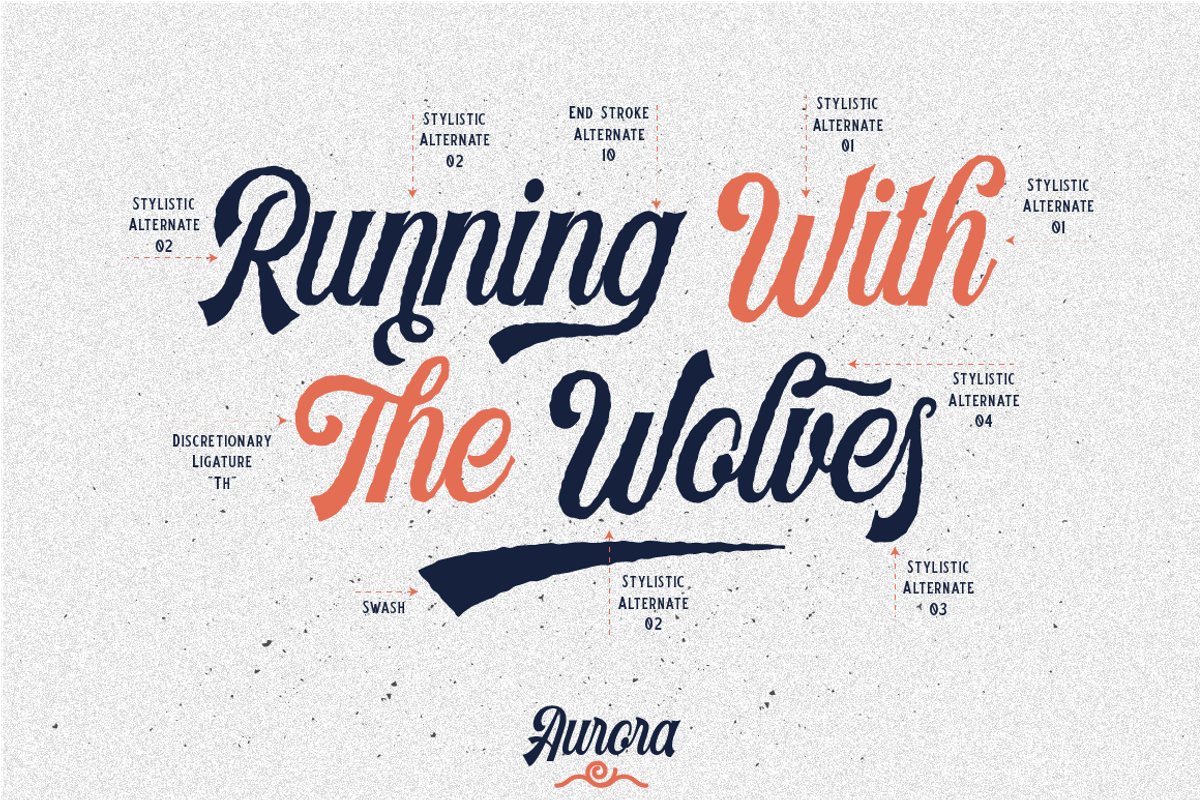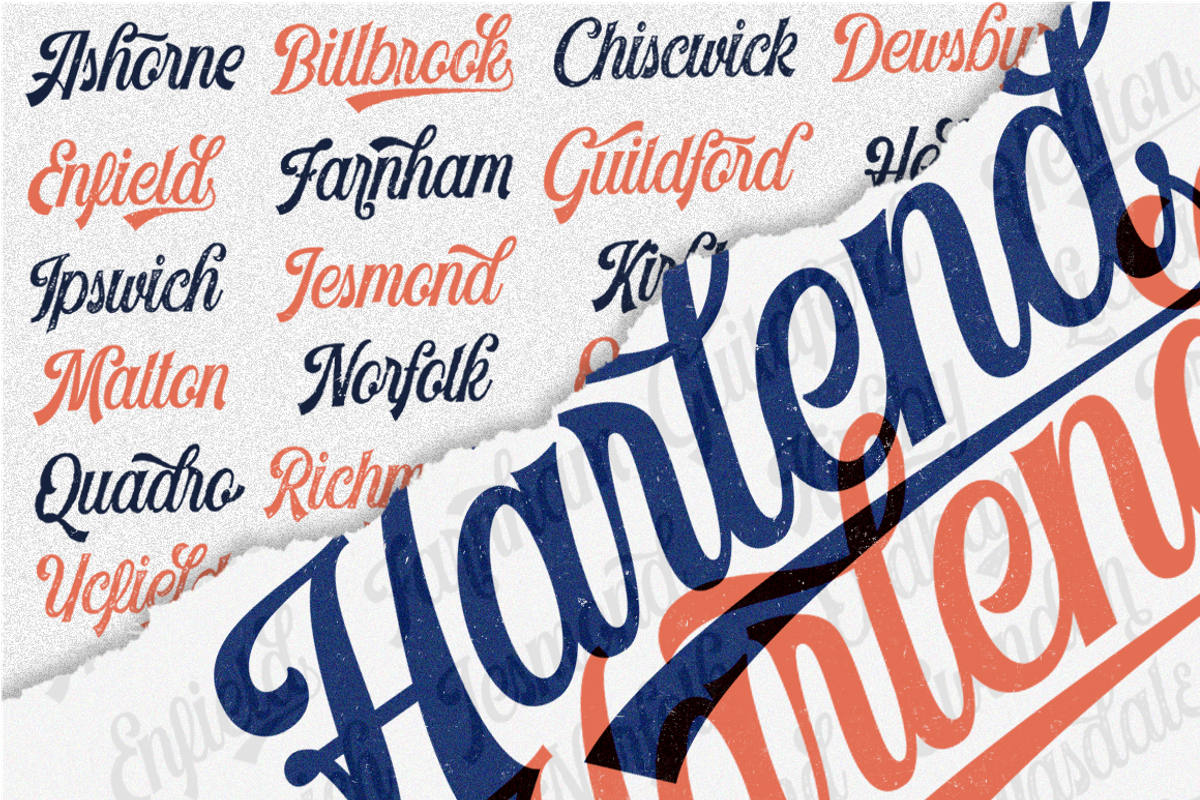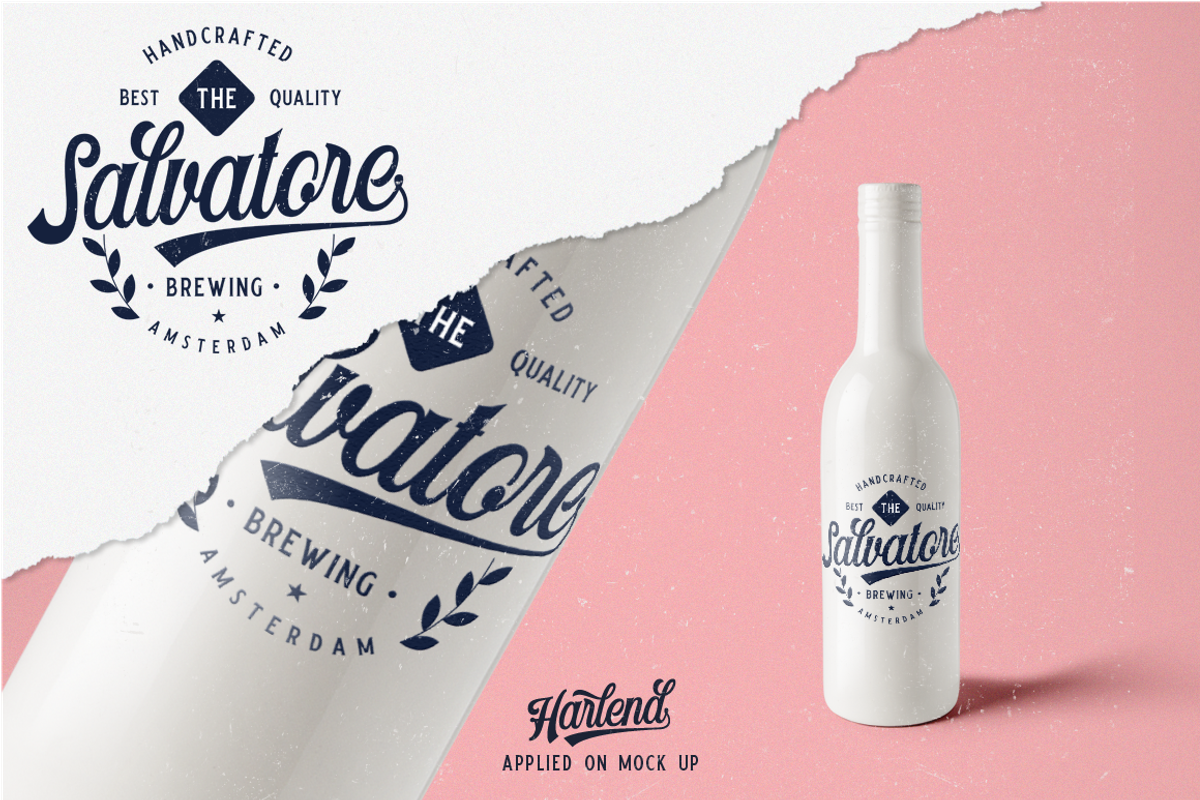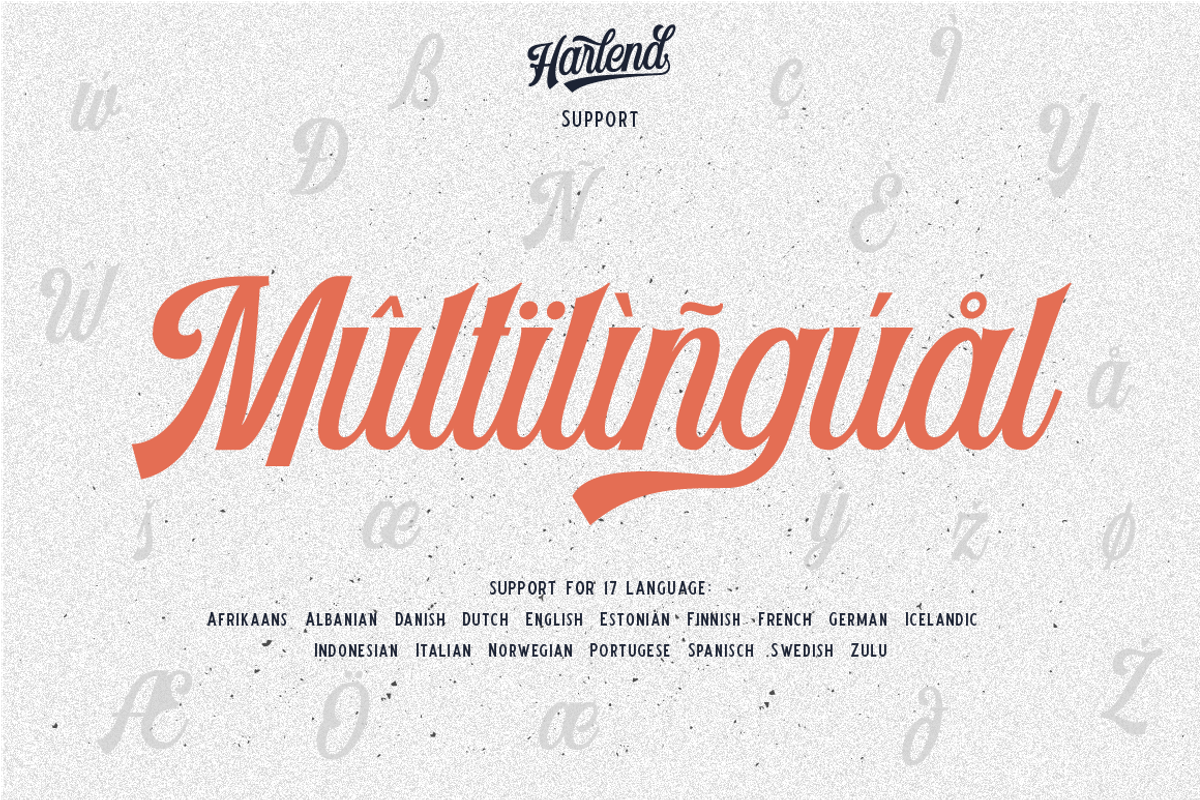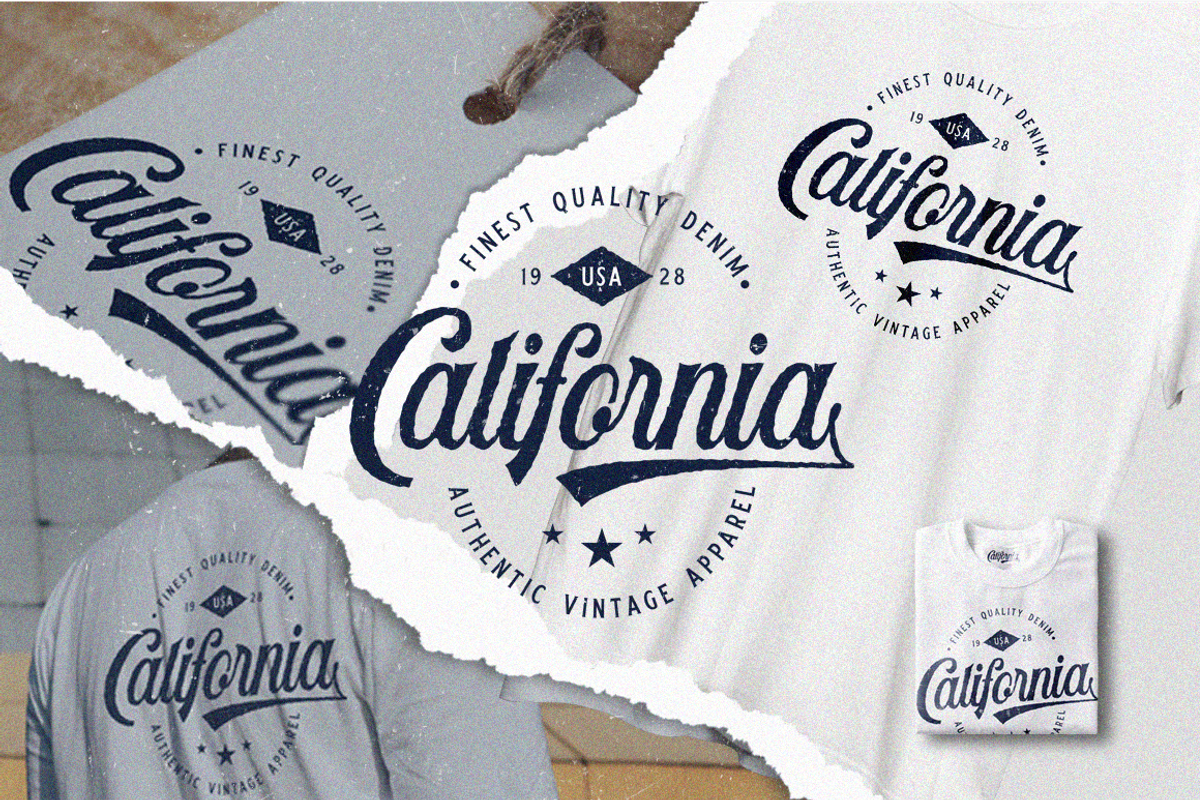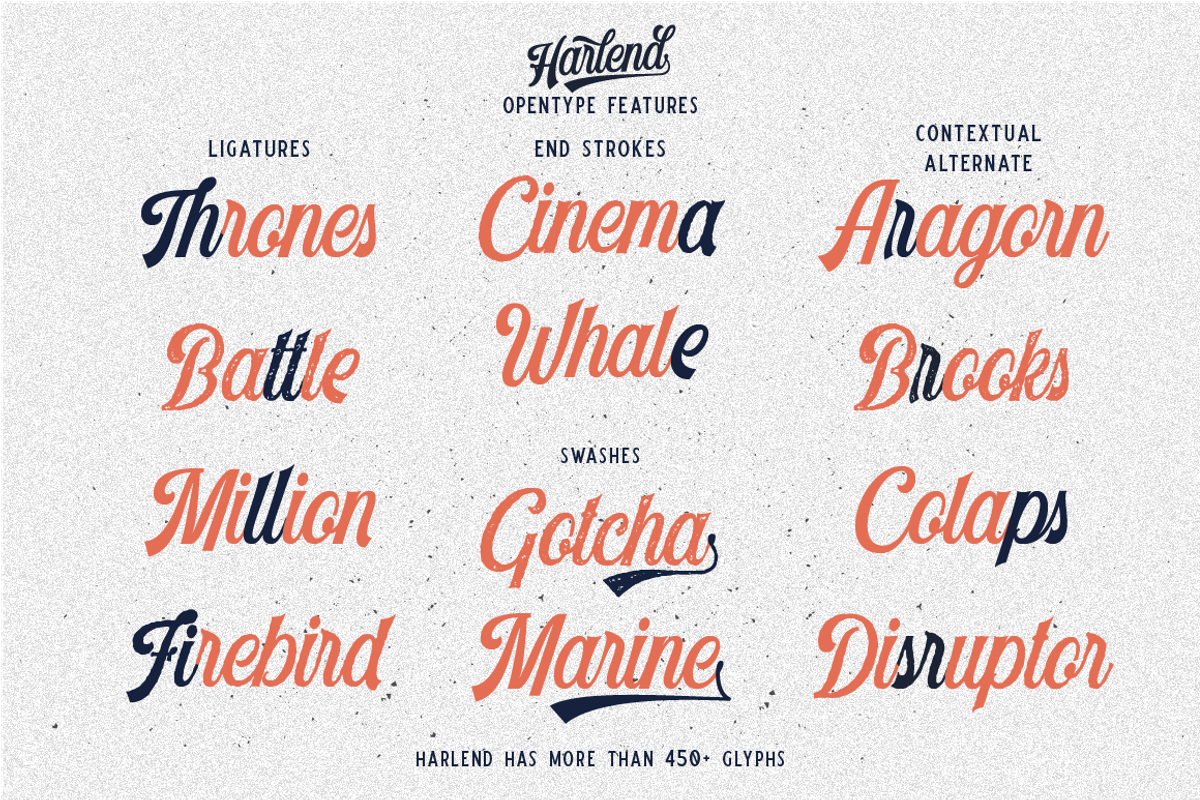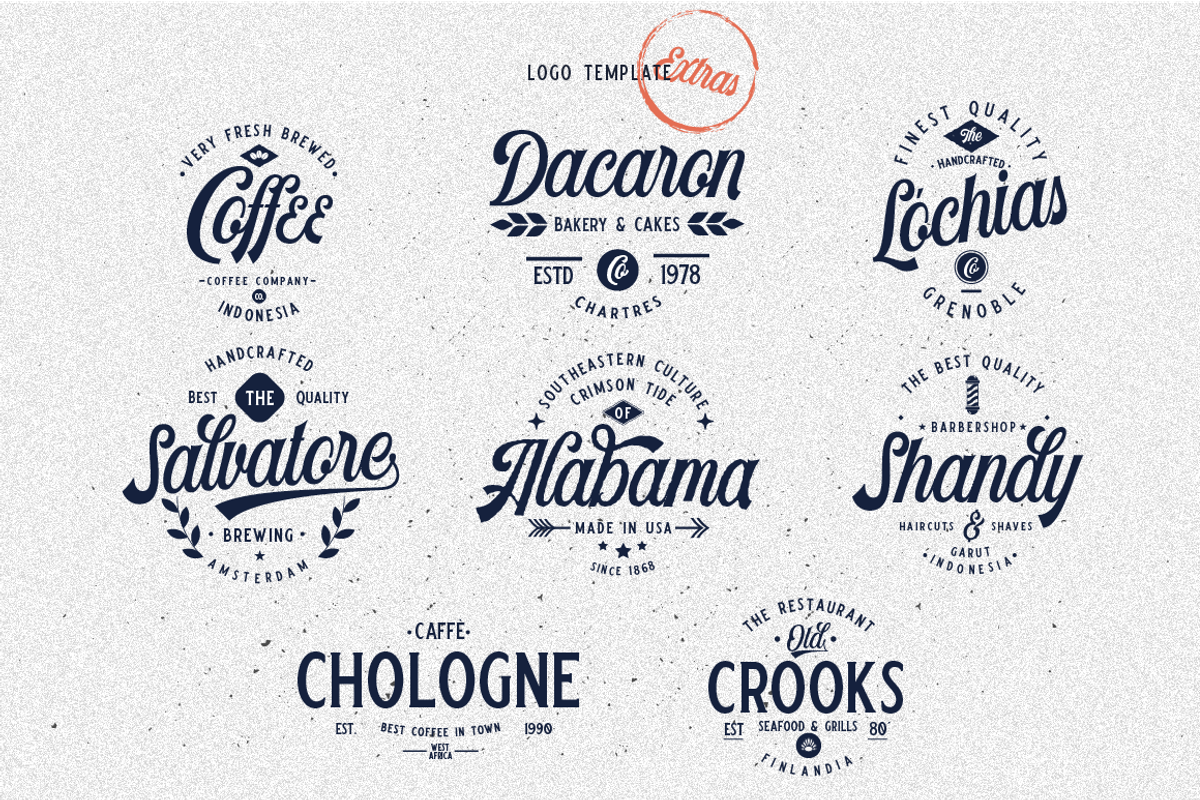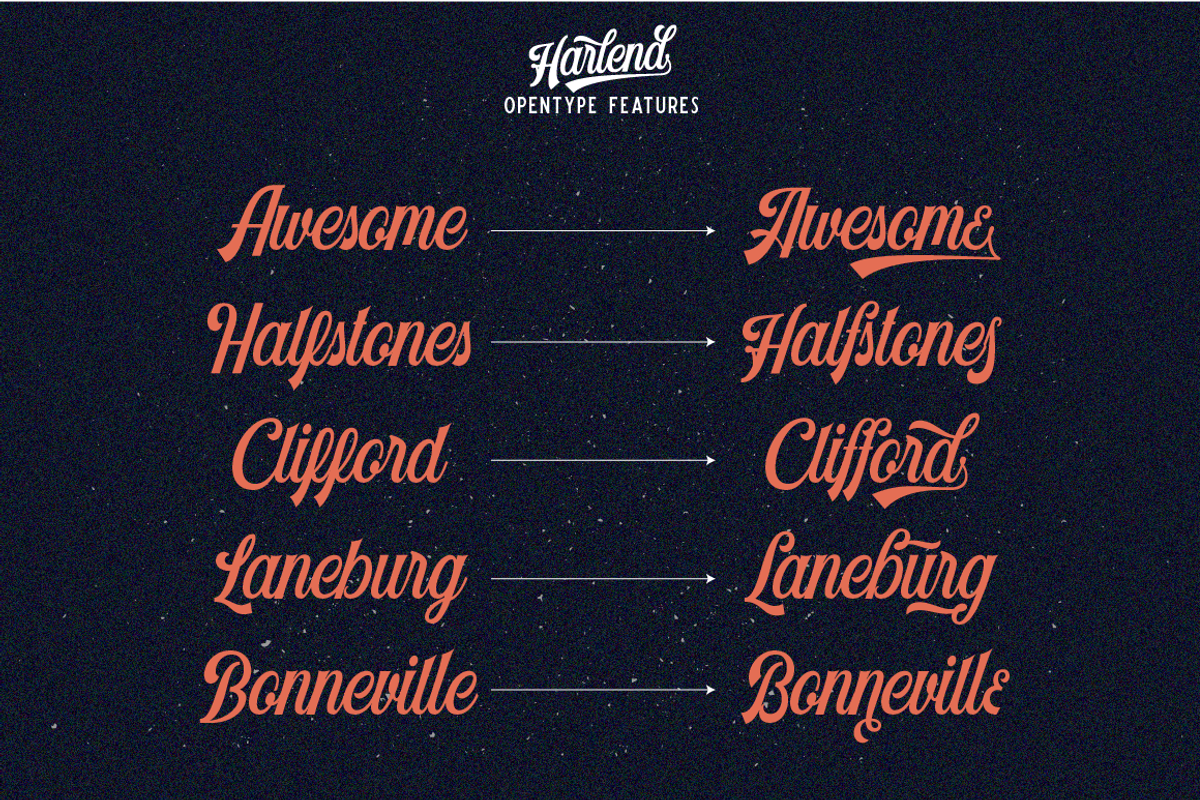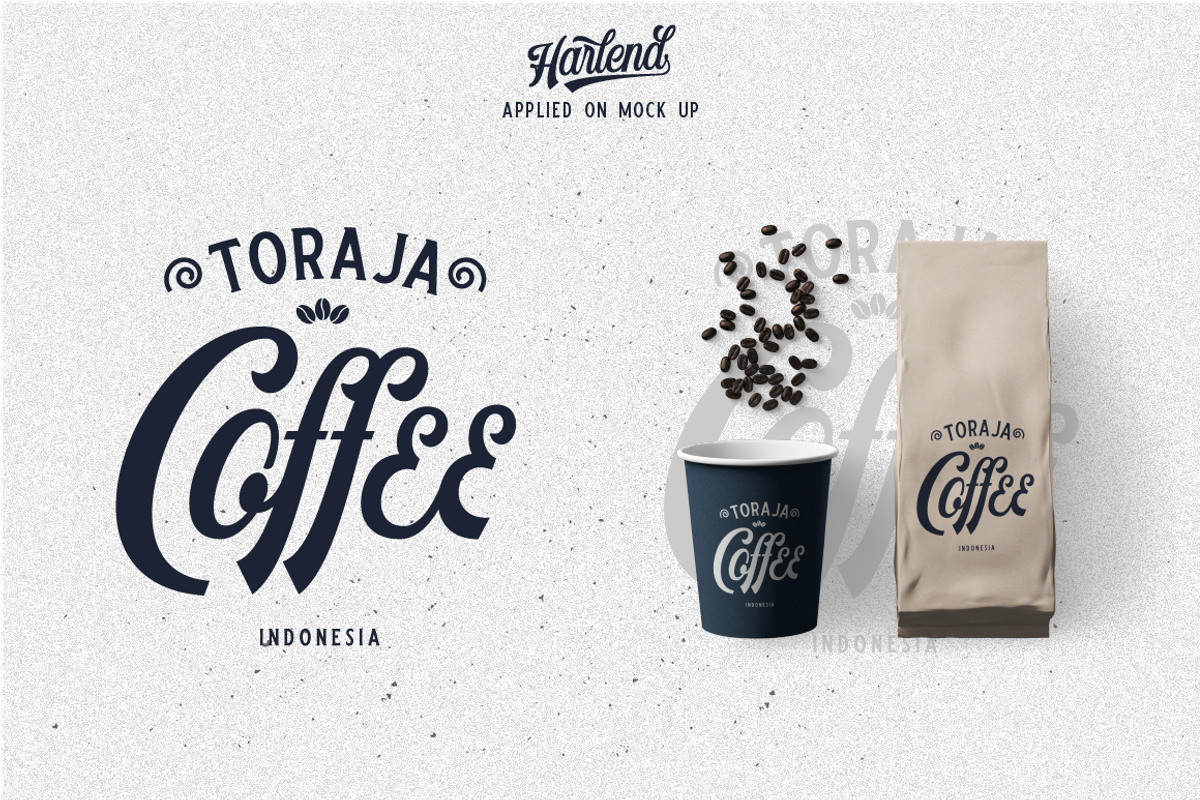
Harlend (6 font with bonus)
If design is cooking, what we are going to offer you is an ingridients that you can use for making many foods.
Let us introduce you to our new font "Harlend"
Harlend is a script vintage font created based on our hand lettering inspired by an old american style of sign painting, labels and packaging, created carefully to make an aesthetic touch on every vintage design you'll make.
Harlend has an alternates so it will make your design not bored because you have more option to use. This font can be used for logos, labels, prints, t shirt design, etc just let your imagination become the only wall to stop it.